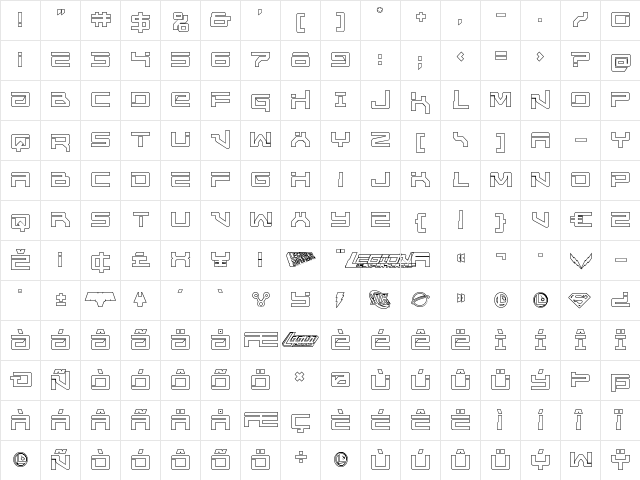
United Planets Outline Regular
Design Context for United Planets Outline Typeface
United Planets Outline is built around its visual character rather than neutral utility — its distinctive forms are designed to make an impression at display sizes.
Font Pairing: Pair with a clean neutral sans-serif for body copy to let United Planets Outline's character lead without overwhelming the composition.
Pro Tip: Treat United Planets Outline as the centrepiece of your typographic hierarchy. One strong heading set in a decorative face can carry an entire layout.